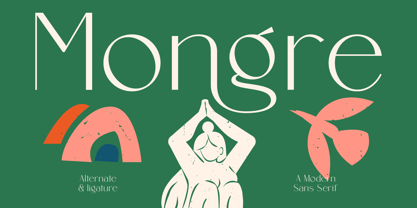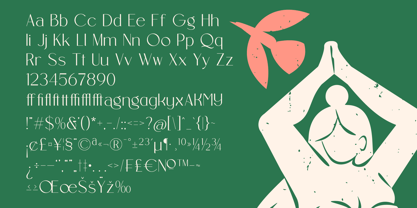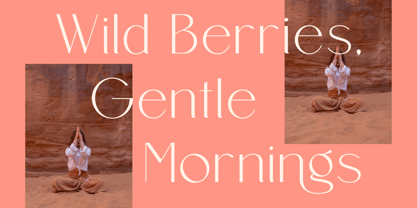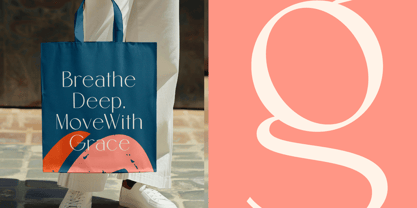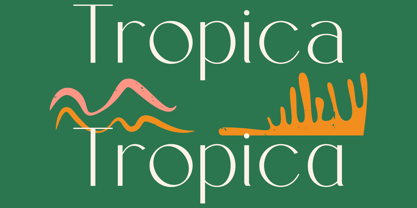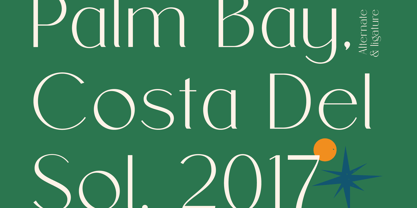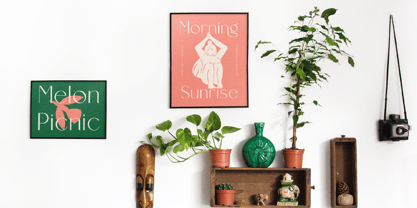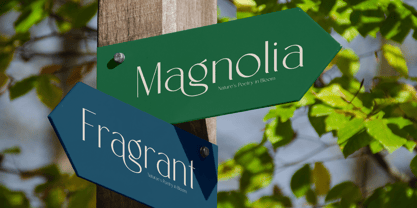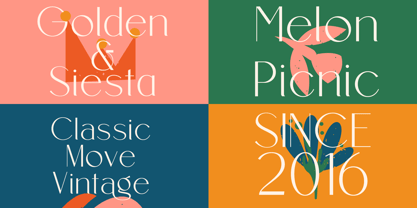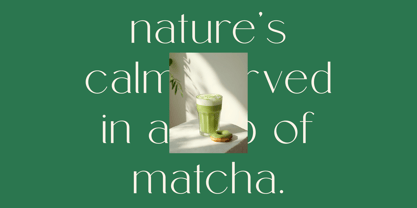
Mongre
by Amorfa Type
The Mongre Font Family was designed by Shiddiq Roihan and published by Amorfa Type. Mongre contains 2 styles and family package options. More about this family
Mongre – A Modern Sans Serif Font by Amorfatype
Mongre is a clean and modern sans serif font that blends minimalist geometry with bold visual clarity. Its sleek letterforms, consistent stroke widths, and contemporary design make Mongre an excellent choice for projects that demand both professionalism and personality. With a focus on simplicity and legibility, Mongre delivers a fresh and refined aesthetic ideal for modern branding and digital use.